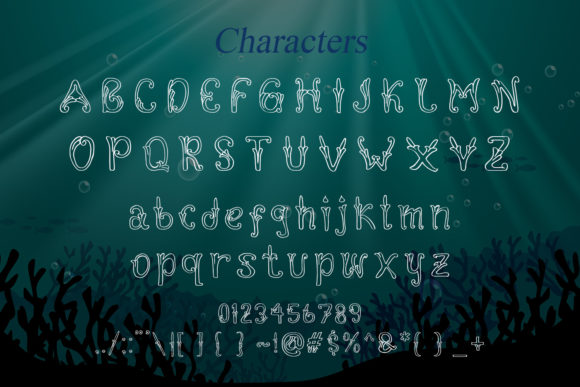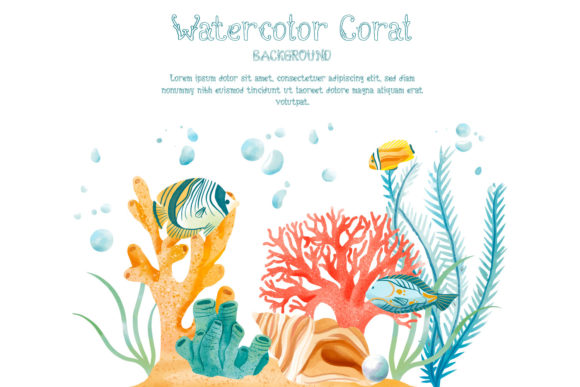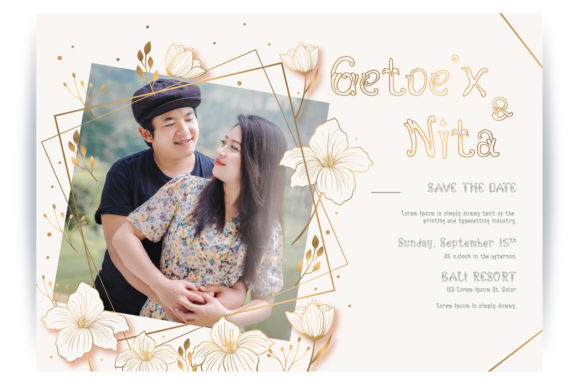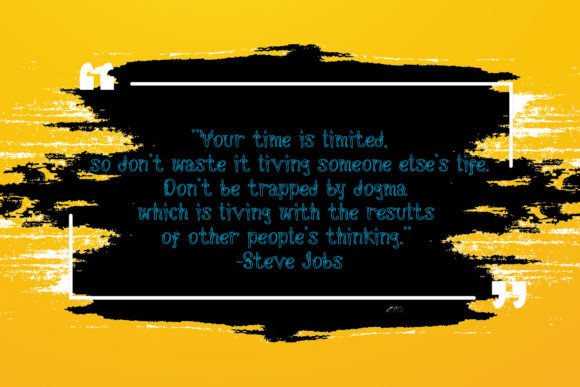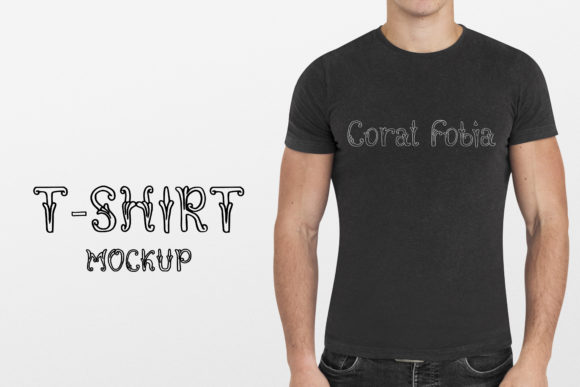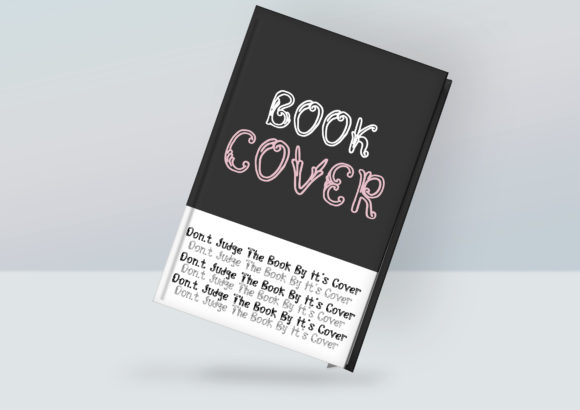
Unlock the Whimsy of Your Designs with Coral Fobia Font
Have you ever been stuck on a design project, feeling like something’s missing, but you can’t quite put your finger on what it is? You’ve tried every font combination, color palette, and layout tweak, but it just doesn’t feel right. That’s when I fell in love with Coral Fobia Font – a game-changing, outlined display font that instantly elevates any design.
Coral Fobia Font is more than just a pretty face; it’s a powerful tool for designers looking to add a touch of whimsy and personality to their projects. This unique font is designed to brighten up even the most mundane designs, making it a valuable addition to any designer’s toolkit. Whether you’re working on a branding project, creating social media graphics, or designing a website, Coral Fobia Font is sure to bring a smile to your face and a spark to your creativity.
Coral Fobia Font Key Features
- Font Family: Coral Fobia is a unique, hand-drawn font designed to evoke a sense of whimsy and playfulness.
- Character Count: The font includes a wide range of characters, including uppercase and lowercase letters, numbers, and punctuation marks.
- Unique Characteristics: Coral Fobia features a distinctive, hand-drawn style with intricate details and subtle variations in letterforms, giving it a one-of-a-kind look.
Coral Fobia Font Review
I recently had the chance to work with the Coral Fobia Font, and I must say it’s a unique addition to any design project. Here’s my honest review:
- Unconventional charm**: Coral Fobia Font has a distinct, quirky feel that can add a lot of personality to a design.
- Highly customizable**: The font’s unusual letterforms make it a great choice for designers who want to experiment with typography.
- Stylish and modern**: Coral Fobia Font is perfect for projects that require a touch of sophistication and elegance.
- Readability issues**: Some letters can be difficult to read, especially at smaller font sizes.
- Not ideal for body text**: Coral Fobia Font is better suited for headlines, titles, and other display text.
Overall, Coral Fobia Font is a great choice for designers who want to add some visual interest to their projects. While it may not be the best option for every design task, its unique charm and high level of customization make it a valuable addition to any designer’s toolkit.
Getting the Most Out of Coral Fobia Font
For the best results, use Coral Fobia Font in conjunction with other design elements that complement its unique style. Experiment with different font sizes, colors, and arrangements to create visually appealing designs.
Coral Fobia Font is suitable for a variety of design projects, including:
- Print
Alternatives to Coral Fobia Font
Great Vibes is a beautiful, elegant script font perfect for creating a whimsical and romantic atmosphere. It is ideal for use in invitations, wedding designs, and any other project that requires a touch of sophistication. In comparison to Coral Fobia Font, Great Vibes is more refined and has a softer feel, making it suitable for a wider range of applications.
Alex Brush is a elegant and refined script font that is perfect for creating a luxurious and high-end feel. It is ideal for use in branding, advertising, and any other project that requires a touch of sophistication. In comparison to Coral Fobia Font, Alex Brush is more polished and has a more refined feel, making it suitable for high-end applications.